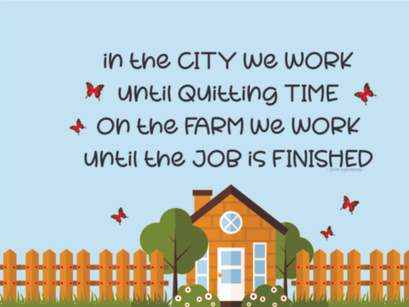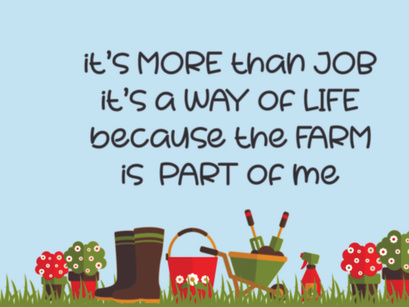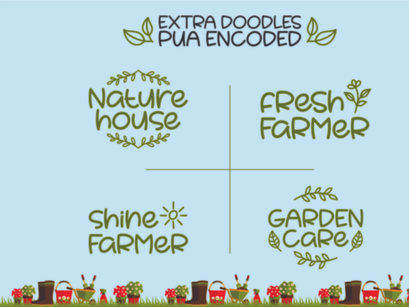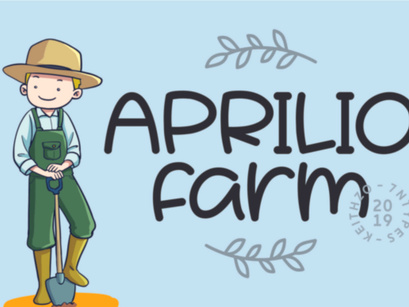
The Aprilio Farm is a striking handwritten font with a great readability. It has a natural handwritten feel and a playful touch. It comes with amazing doodles to add to your designs.